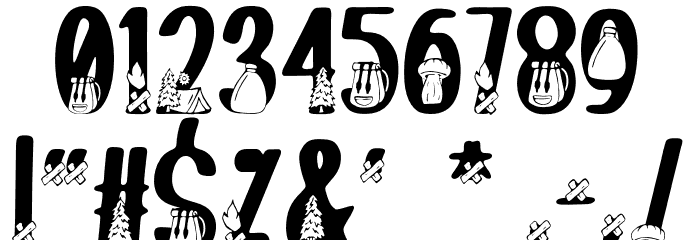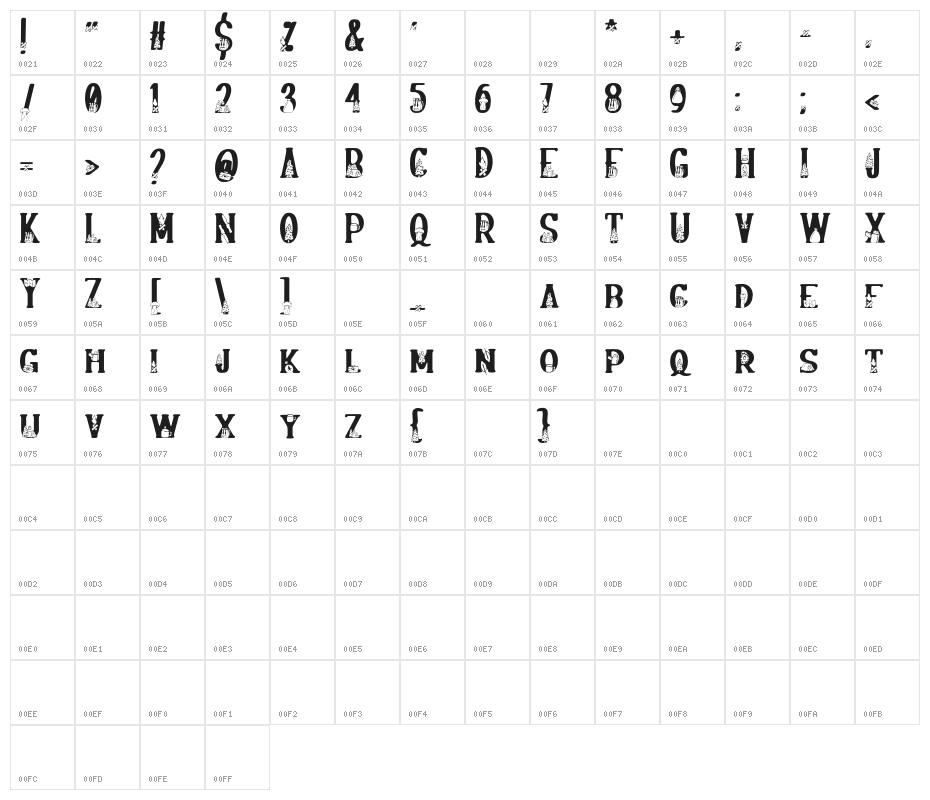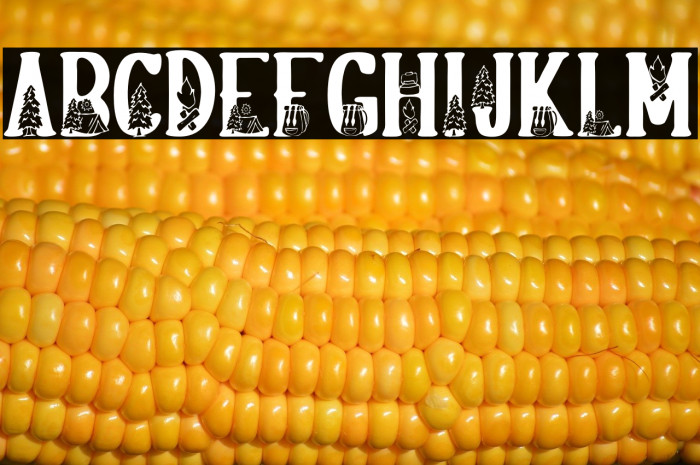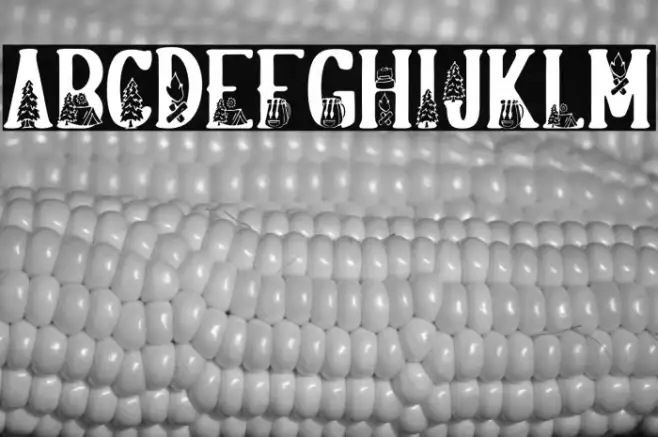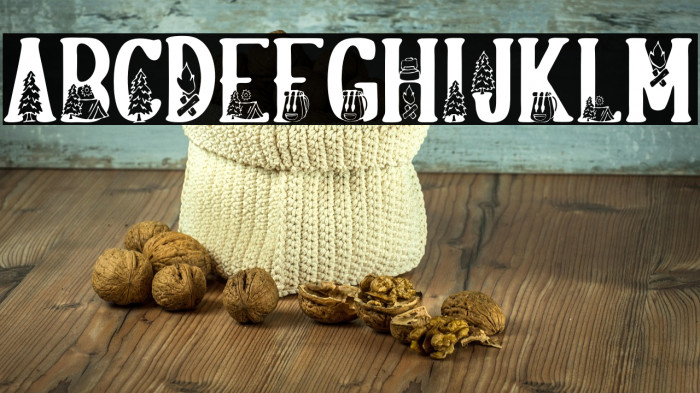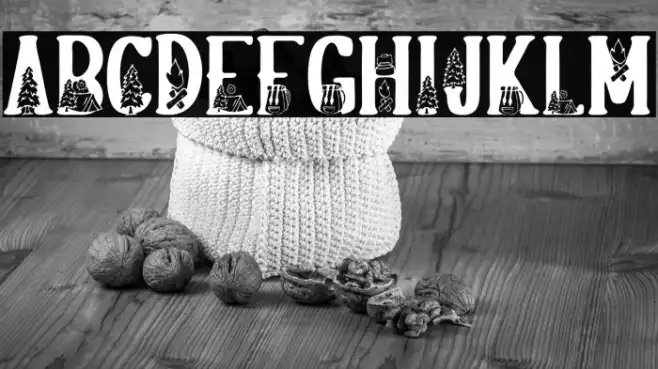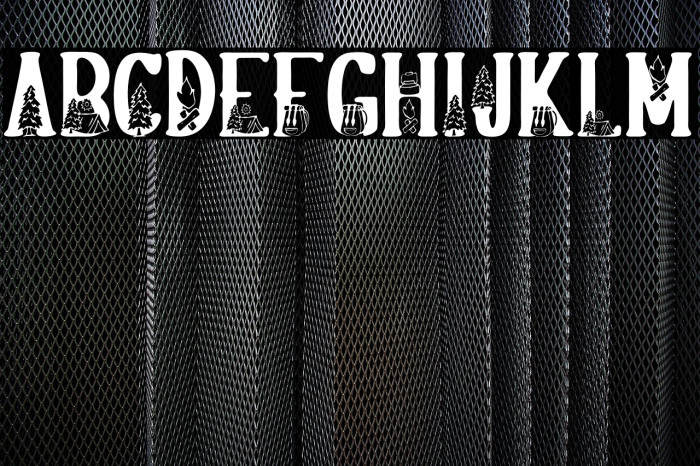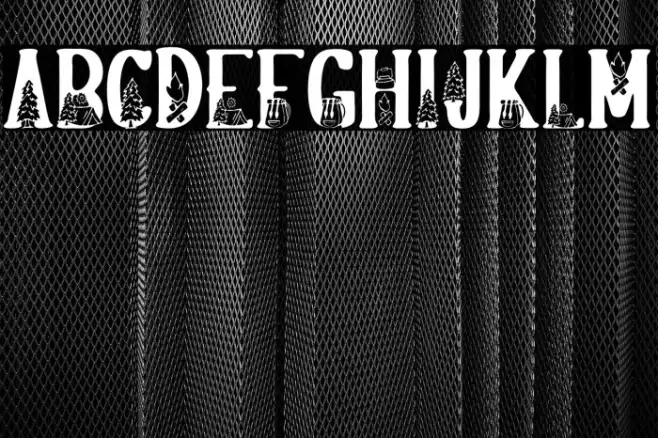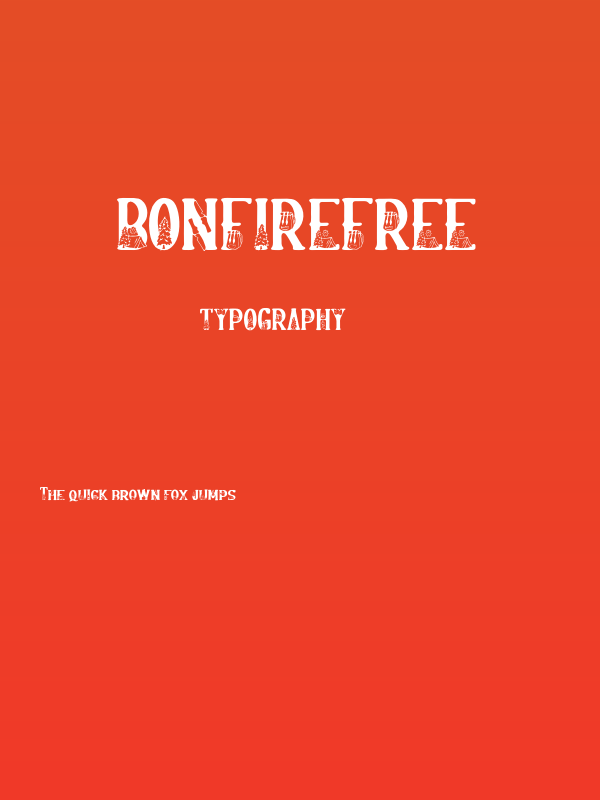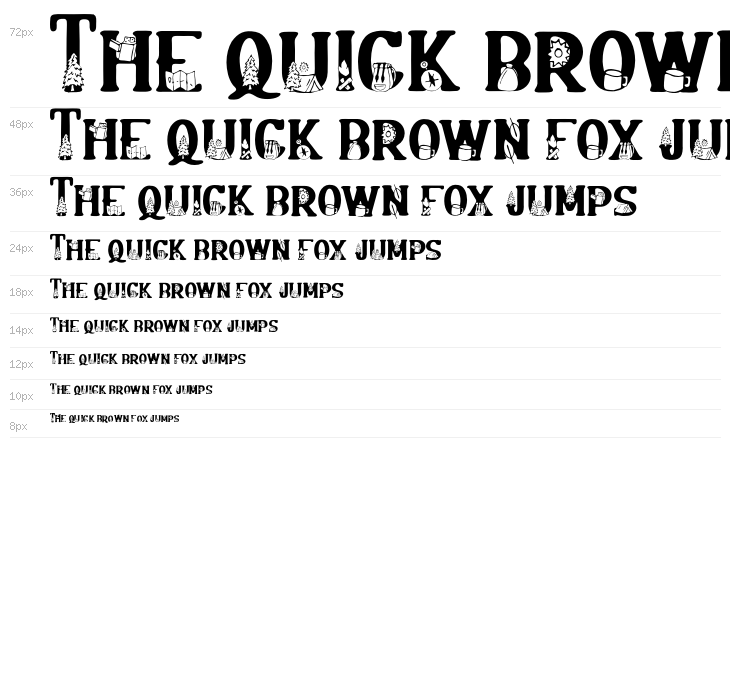
BonfireFREE Font
BonfireFREE Description
This playful and decorative font features bold, uppercase and lowercase letters, numbers, and special characters, each adorned with whimsical camping-themed illustrations. The characters are filled with elements like trees, tents, campfires, and other outdoor motifs, creating a unique and engaging visual experience. The font's bold strokes and playful design make it ideal for projects that require a fun and adventurous feel. The spacing between characters is normal, ensuring readability while maintaining its decorative appeal. This font is perfect for capturing the essence of outdoor adventures and camping trips.
| Proposed Projects | Ideal for outdoor event posters, camping trip flyers, children's books, and adventure-themed branding. |